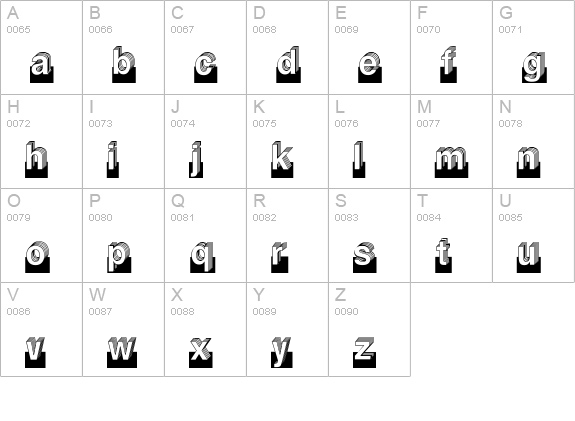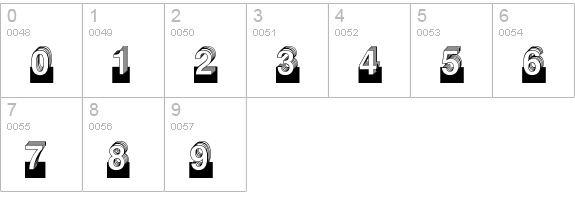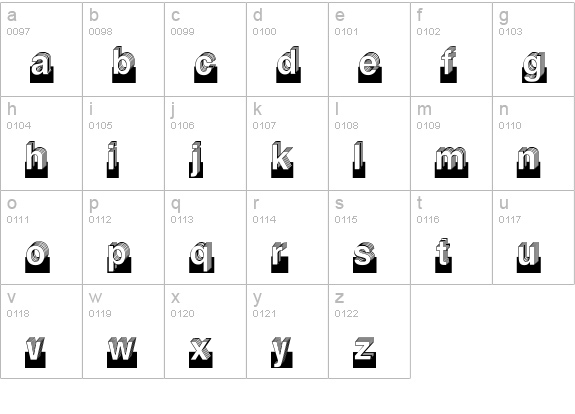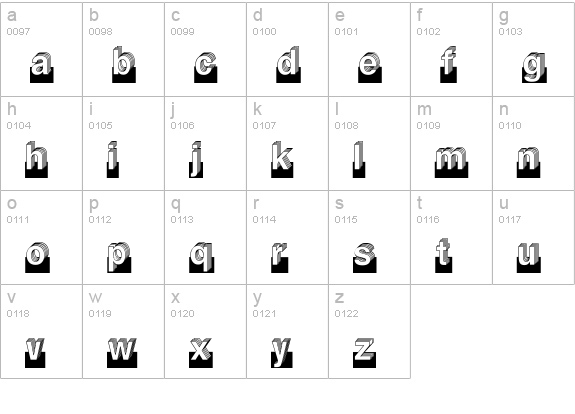
Level Font Details
Level font is a stunning display typeface that is perfect for adding a touch of elegance and sophistication to any design project. With its clean lines and geometric shapes, this font exudes a sense of modernity and professionalism. Its versatile nature makes it suitable for a wide range of applications, from branding and logos to posters and headlines. One of the biggest advantages of Level font is that it is freely available to download at FontsMarket.com. This means that anyone can easily access and use this magnificent font without any cost. Whether you are a professional designer looking to enhance your portfolio or an individual looking to add a stylish touch to your personal projects, Level font is the ideal choice. The attention to detail in Level font is truly remarkable. Each character has been meticulously crafted to ensure a harmonious balance between legibility and aesthetics. The sharp edges and precise curves give the font a distinct and polished look, making it stand out from the crowd. Furthermore, Level font offers a wide range of weights, from light to bold, allowing for endless creative possibilities. Whether you prefer a delicate and refined look or a bold and impactful statement, this font has got you covered. The versatility of Level font extends to its language support, with an extensive range of characters available for various languages. This makes it a truly global font that can be used in projects targeting different regions and audiences. In conclusion, Level font is a must-have for any designer or creative individual looking to elevate their projects to the next level. Its elegance, versatility, and high-quality design make it a valuable asset in any design toolkit. And the best part? It is freely available to download at FontsMarket.com, ensuring that everyone can enjoy the beauty and functionality of this remarkable font.